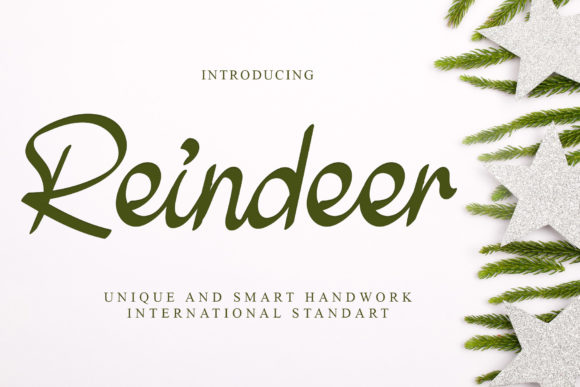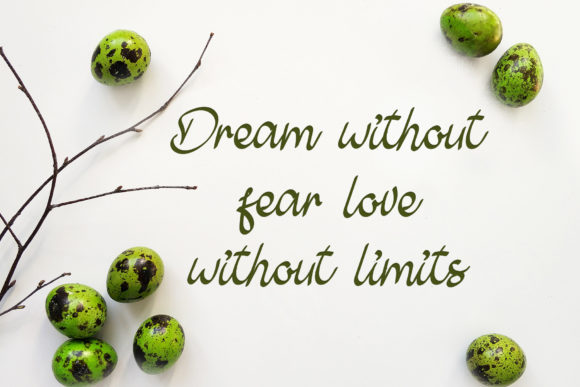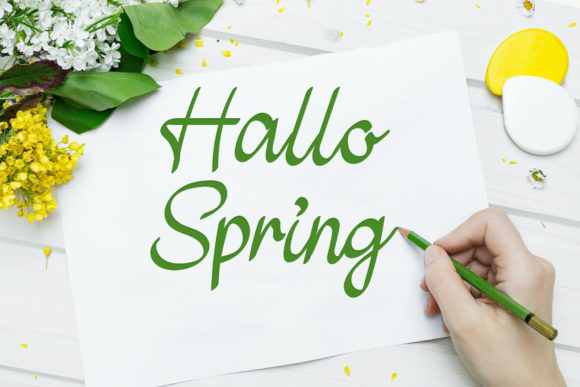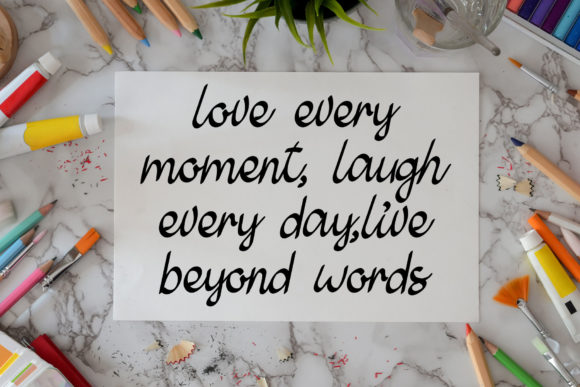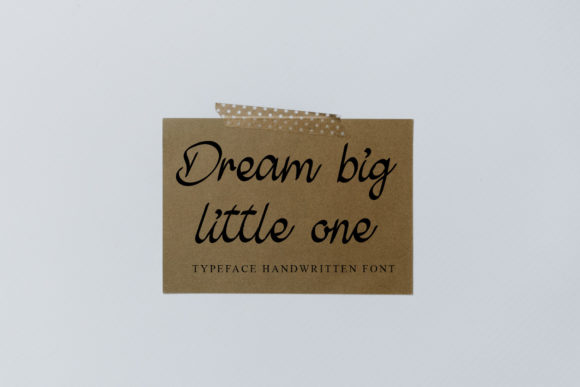
Reindeer Font
About Reindeer Font
ReindeerĀ is a sweet and delicate handwritten font. Dainty and joyful, this font will be ideal for writing wedding invitations, cards or any other design that may need a romantic, personalized touch!